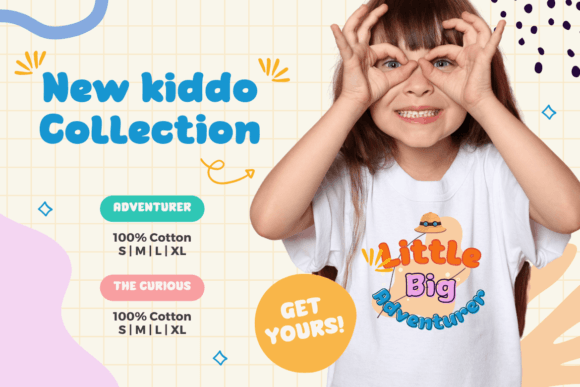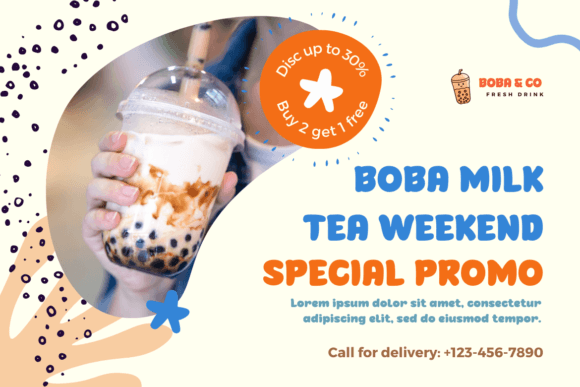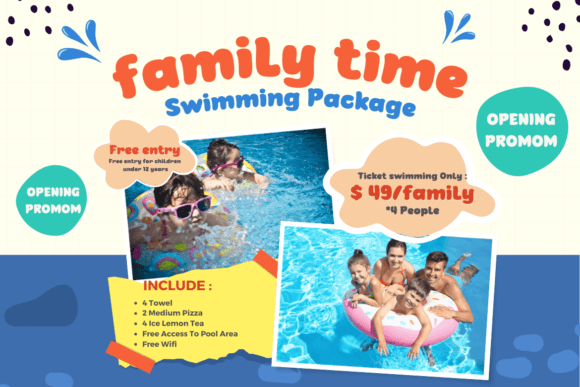
The Perfect Font for a Touch of Whimsy
Have you ever been brainstorming a creative project, only to be struck by a spark of inspiration at the most unexpected moment? Maybe it’s the perfect phrase for a children’s book, or the ideal title for a movie. Whatever it is, that ‘aha’ moment is what makes all the hard work worth it. And what if you had the perfect font to match that spark?
That’s where the Gijsuy Font comes in – a delightful display font that’s as friendly as it is approachable. Designed to bring a touch of whimsy to your projects, the Gijsuy Font is perfect for greeting cards, children’s books, quotes, posters, invitations, business cards, and more. Whether you’re a seasoned designer or just starting out, the Gijsuy Font is a valuable addition to your toolkit, offering endless possibilities for creativity and self-expression.
Gijsuy Font Key Features
- Font Family: Gijsuy is a sans-serif font family designed for digital use.
- Font Size: Gijsuy comes in multiple weights, ranging from Thin (100) to Extra Bold (800).
- Unique Characteristics: Gijsuy features a clean, modern design with subtle rounded edges and a friendly feel.
- Language Support: Gijsuy supports a wide range of languages, including Latin, Cyrillic, and Greek scripts.
Gijsuy Font Review
Overall, I’m quite impressed with the Gijsuy Font, but as with any design, it has its strengths and weaknesses. Here’s my honest review.
- Unique aesthetic: Gijsuy Font has a distinctive, hand-drawn feel that sets it apart from other fonts.
- Good legibility: The font is easy to read, even at smaller font sizes.
- High-quality rendering: The font renders well in a variety of contexts, including on screens and in print.
- Limited language support: Gijsuy Font may not support all languages, which could be a limitation for multilingual designs.
- Not ideal for small text: While the font is legible at larger sizes, it may become difficult to read at very small text sizes.
- No bold or italic styles: The font only comes in regular weight, which may limit its use in certain design contexts.
Overall, I think Gijsuy Font is a solid choice for designs where a unique, hand-drawn aesthetic is desired. However, its limitations should be carefully considered before using it for complex or multilingual designs.
For best results, use Gijsuy Font in headings and titles to create a bold and eye-catching design.
For best results, use Gijsuy Font in combination with bold lines and bright colors to create a striking design.
For best results, use Gijsuy Font in headings and titles to create a clear and concise presentation or document.
Gijsuy Font is ideal for:
- Creating bold and eye-catching headings and titles.
- Designing striking posters and flyers.
- Developing clear and concise presentations and documents.
Remember to experiment with different font sizes, colors, and styles to get the most out of Gijsuy Font.
Alternatives to Gijsuy Font for Designers
Playfair Display is a luxurious, high-end serif font that’s perfect for creating a sense of sophistication and elegance. It’s ideal for use in luxury branding, high-end marketing materials, and special occasions.
Playfair Display is a more ornate and decorative font compared to Gijsuy Font, which is a more modern and clean sans-serif font. While Gijsuy Font is versatile and suitable for various applications, Playfair Display is best reserved for special occasions and high-end branding.
Lato is a modern sans-serif font that’s highly legible and versatile. It’s a great choice for use in digital products, apps, and websites, as well as in print materials such as brochures and magazines.
Lato is a more modern and sleek font compared to Gijsuy Font, which has a more geometric and futuristic feel. While Gijsuy Font is ideal for futuristic and tech-related branding, Lato is a better choice for more traditional and professional applications.
Montseratt is a sans-serif font that’s inspired by the urban environment of Buenos Aires. It’s a great choice for use in urban-themed branding, digital products, and websites.